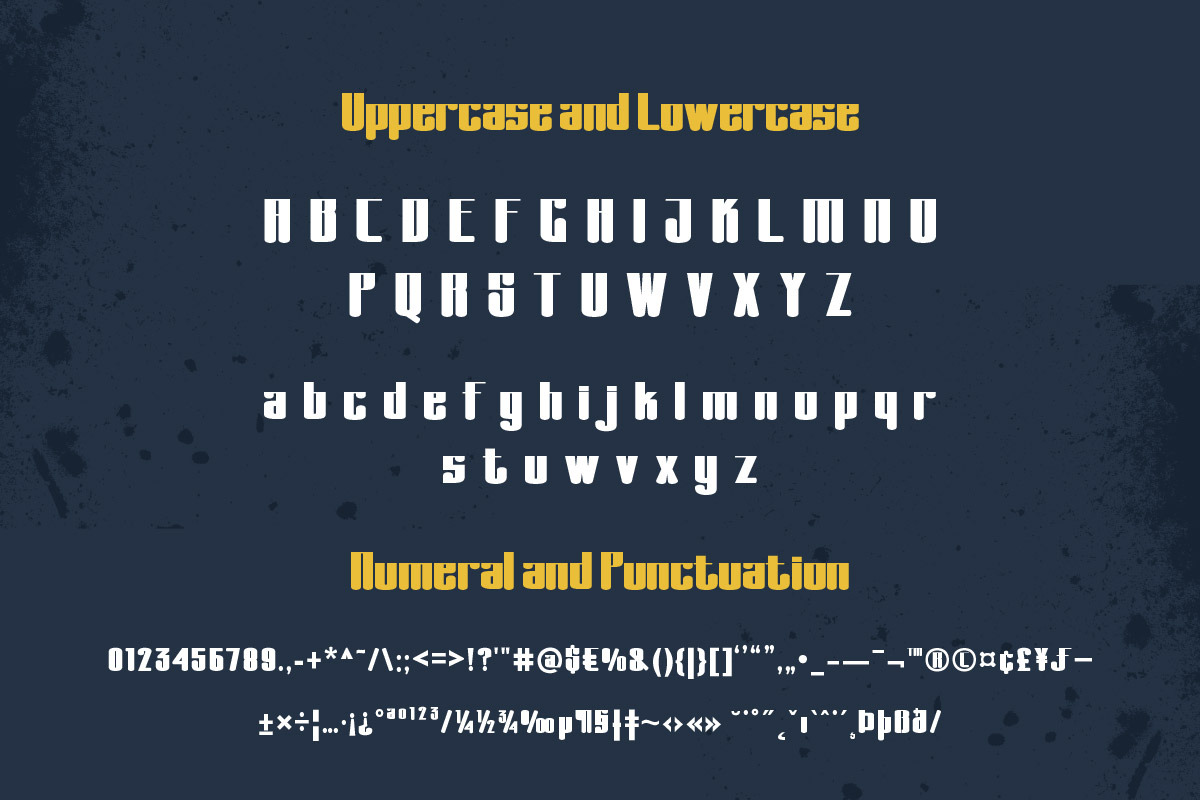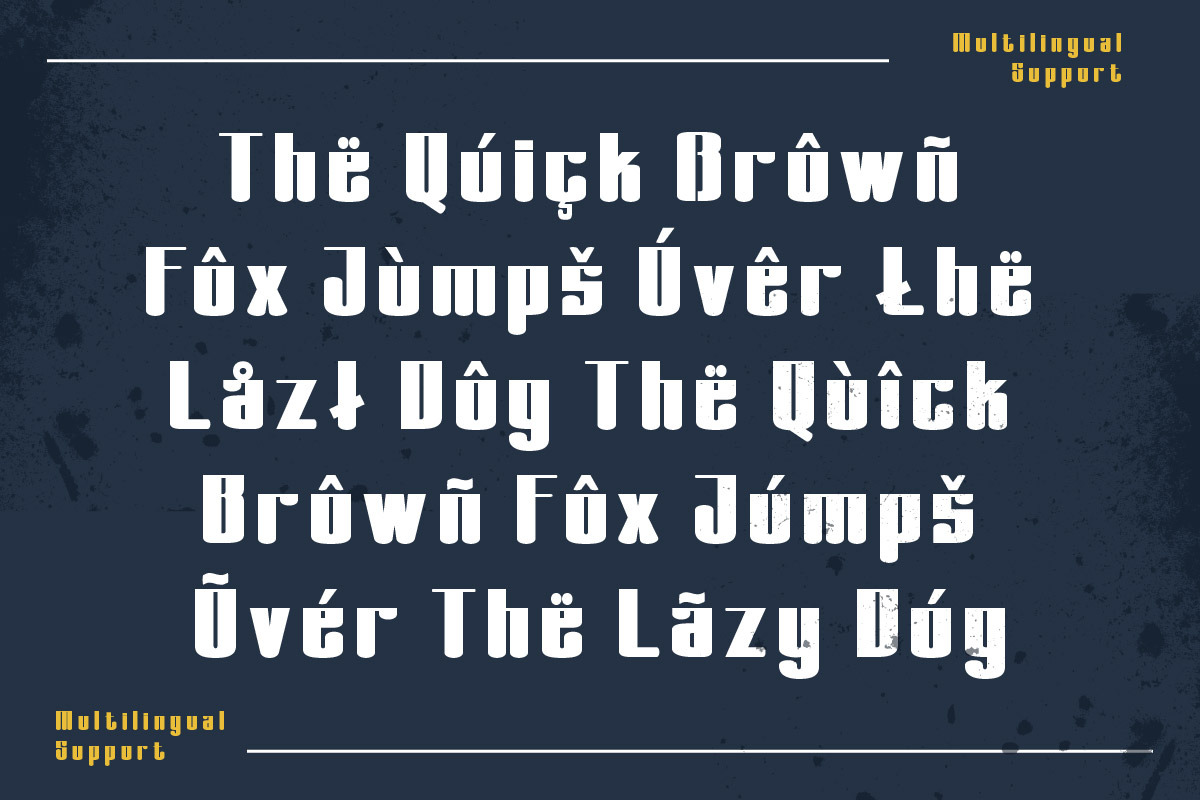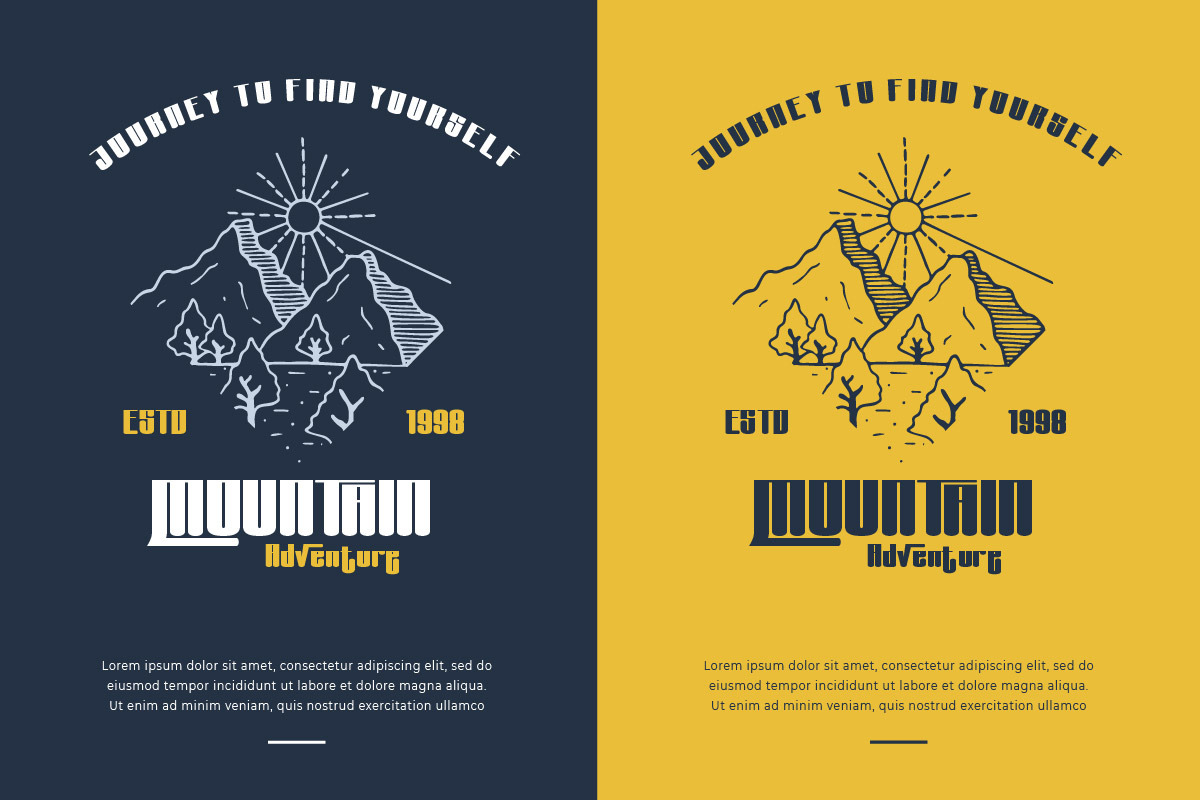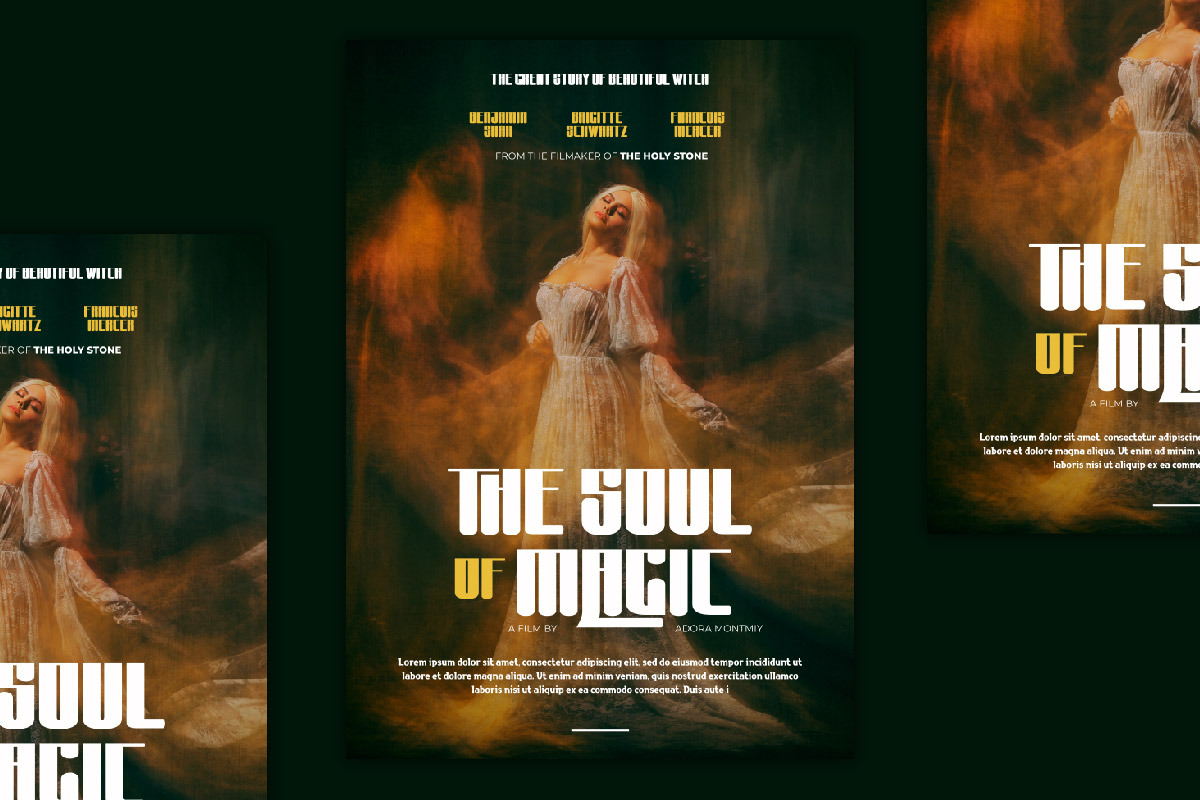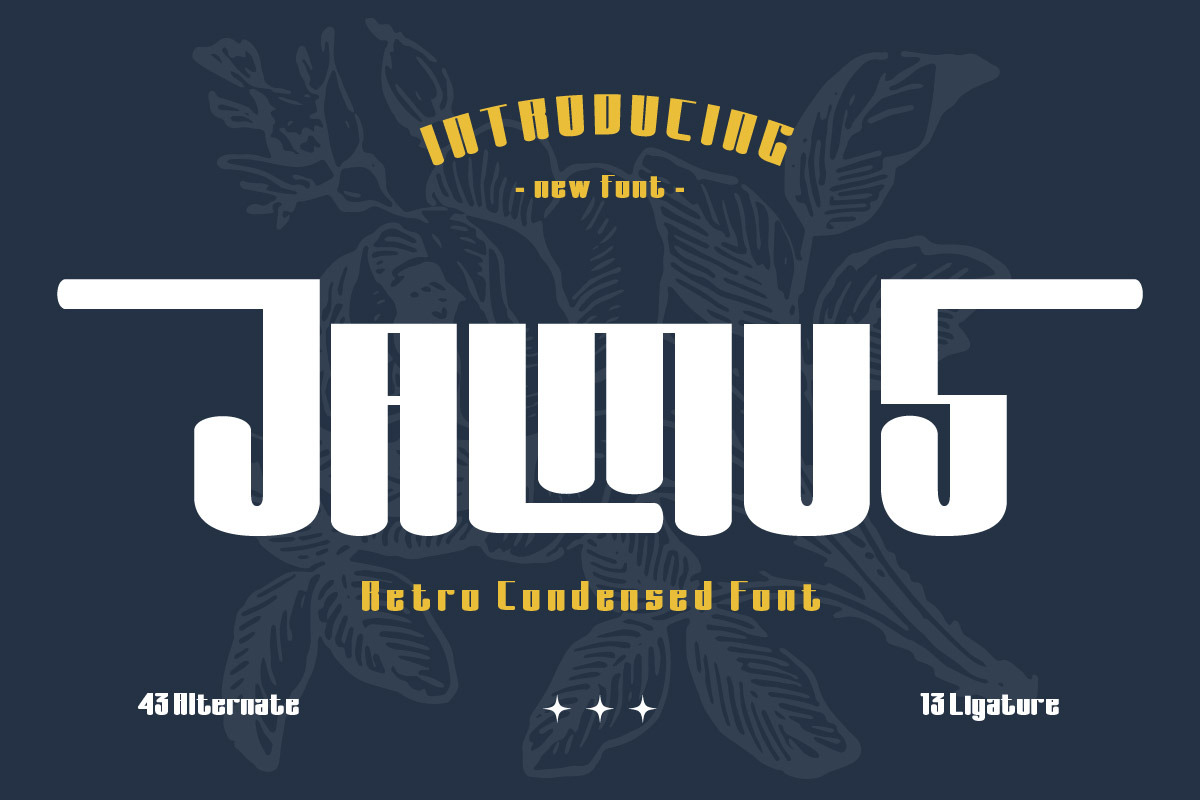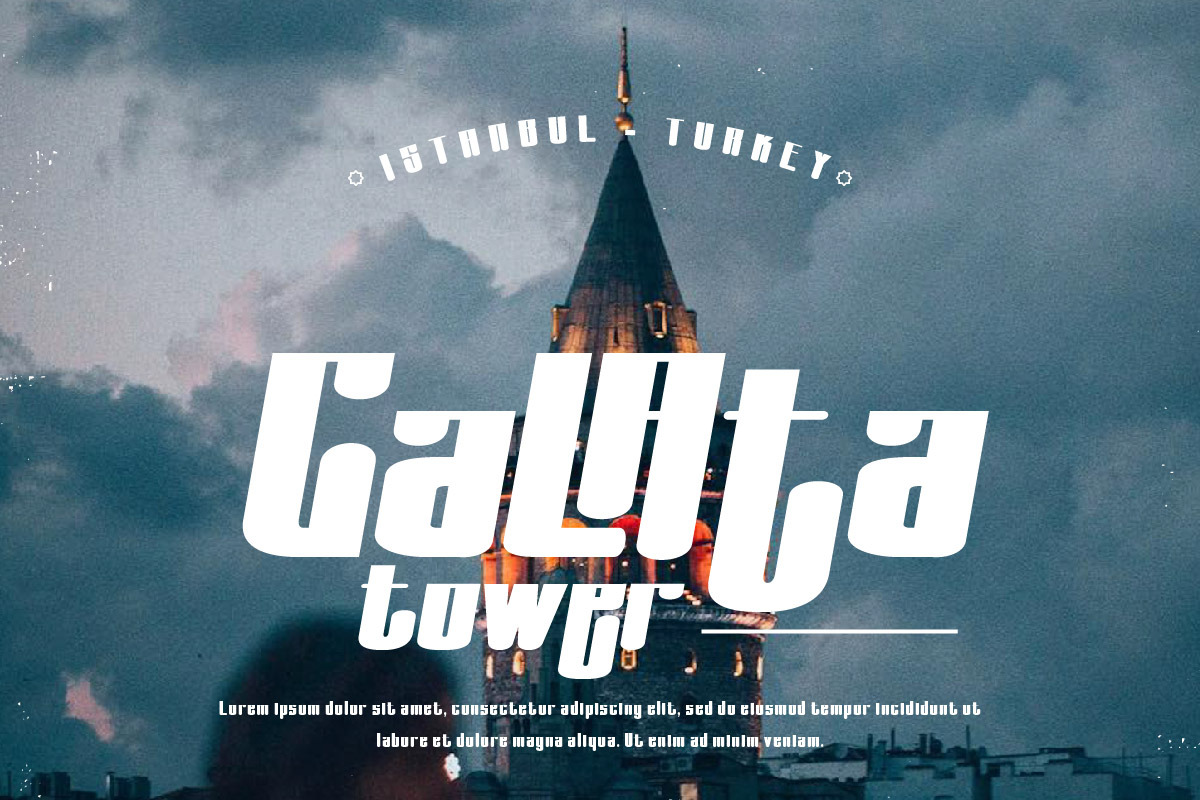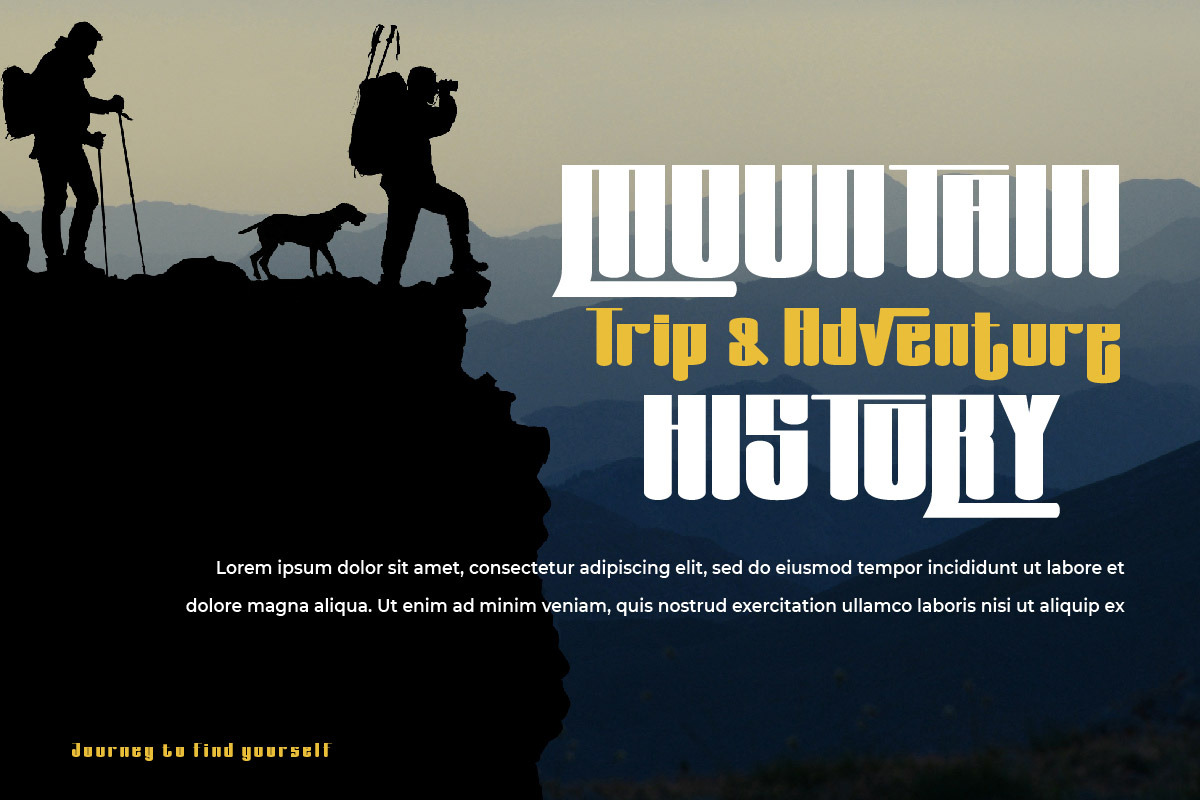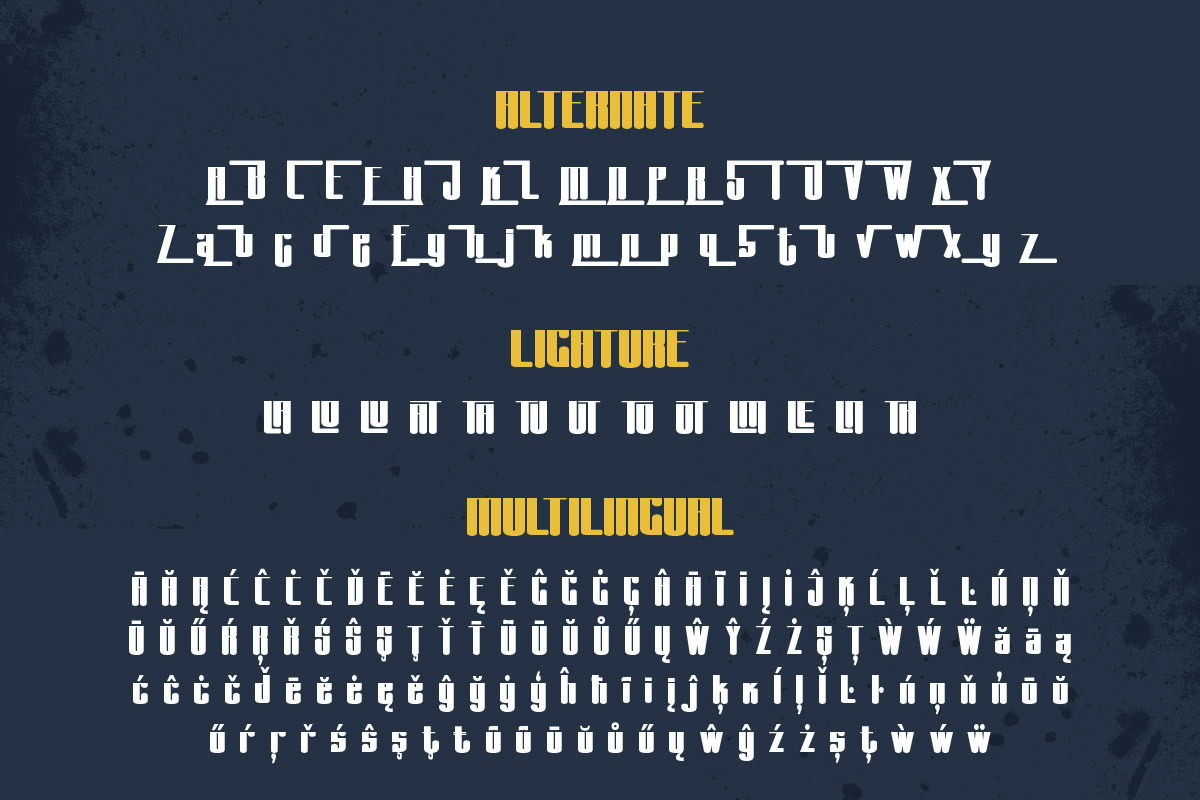
Jalmus - Retro Condensed Font
Jalmus is a retro condensed font that captures the spirit of the past while still remaining relevant today. Its unique, vintage-inspired characters are perfect for those projects where you want to evoke nostalgia, but with a fresh twist. Whether you’re creating a poster for a retro-themed event or designing a logo for a vintage clothing store, Jalmus adds a touch of yesteryear that is sure to captivate your audience.